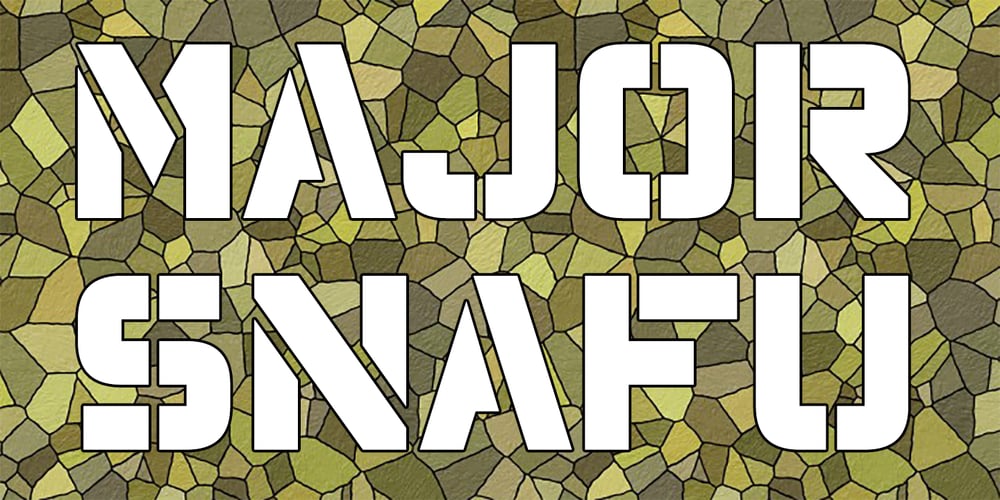
Major Snafu Pro
Major Snafu Pro font
Major Snafu Pro Font Family was designed by Vic Fieger, Roger S. Nelsson and published by CheapProFonts. Major Snafu Pro contains 1 styles and family package options. Classic stencil typeface. Please note many of the letterforms come in two versions – some of the Uppercase letters are filled in while the lowercase letters are open, and there are also other variations to play with. Ten shun! ALL fonts from CheapProFonts have very extensive language support: They contain some unusual diacritic letters (some of which are contained in the Latin Extended-B Unicode block) supporting: Cornish, Filipino (Tagalog), Guarani, Luxembourgian, Malagasy, Romanian, Ulithian and Welsh. They also contain all glyphs in the Latin Extended-A Unicode block (which among others cover the Central European and Baltic areas) supporting: Afrikaans, Belarusian (Lacinka), Bosnian, Catalan, Chichewa, Croatian, Czech, Dutch, Esperanto, Greenlandic, Hungarian, Kashubian, Kurdish (Kurmanji), Latvian, Lithuanian, Maltese, Maori, Polish, Saami (Inari), Saami (North), Serbian (latin), Slovak(ian), Slovene, Sorbian (Lower), Sorbian (Upper), Turkish and Turkmen. And they of course contain all the usual “western” glyphs supporting: Albanian, Basque, Breton, Chamorro, Danish, Estonian, Faroese, Finnish, French, Frisian, Galican, German, Icelandic, Indonesian, Irish (Gaelic), Italian, Northern Sotho, Norwegian, Occitan, Portuguese, Rhaeto-Romance, Sami (Lule), Sami (South), Scots (Gaelic), Spanish, Swedish, Tswana, Walloon and Yapese.